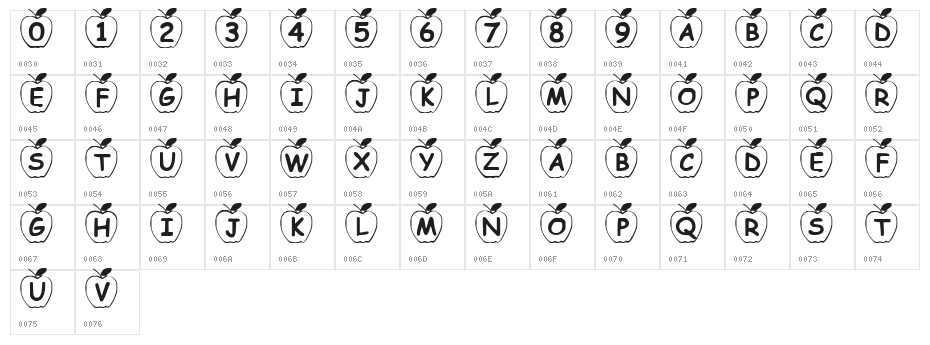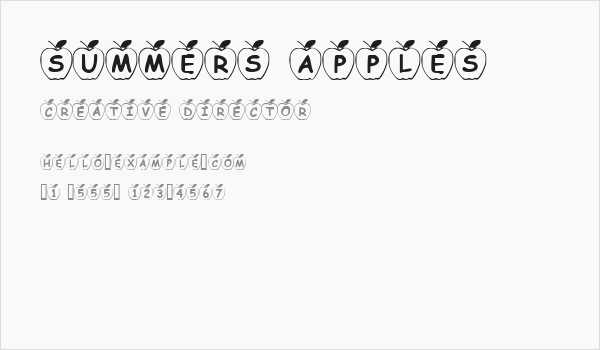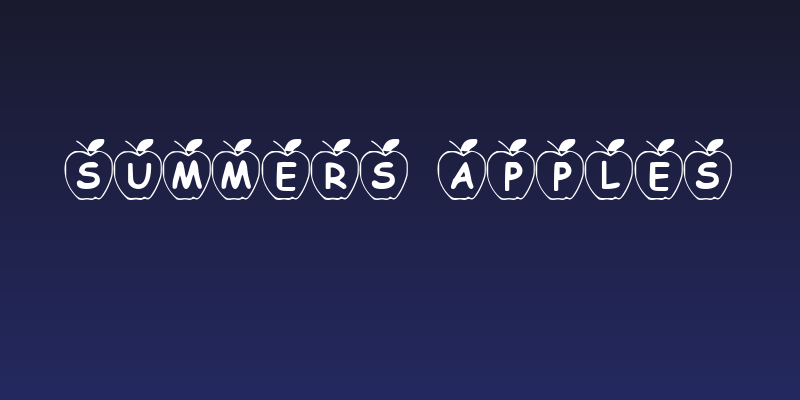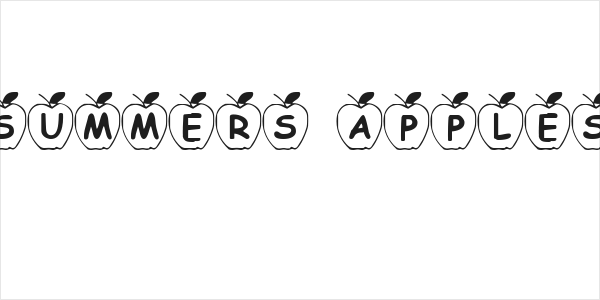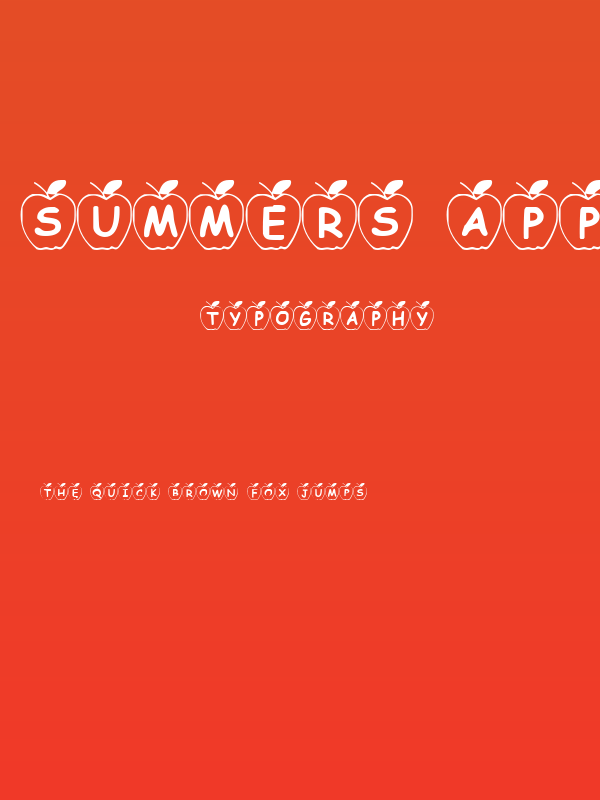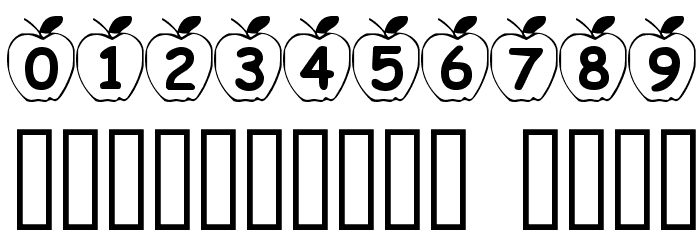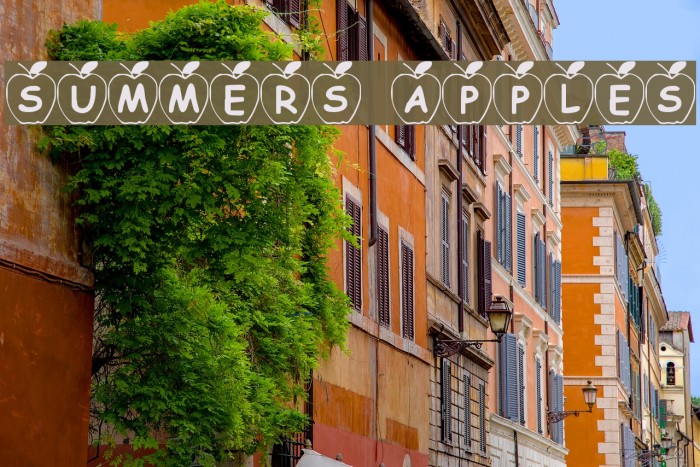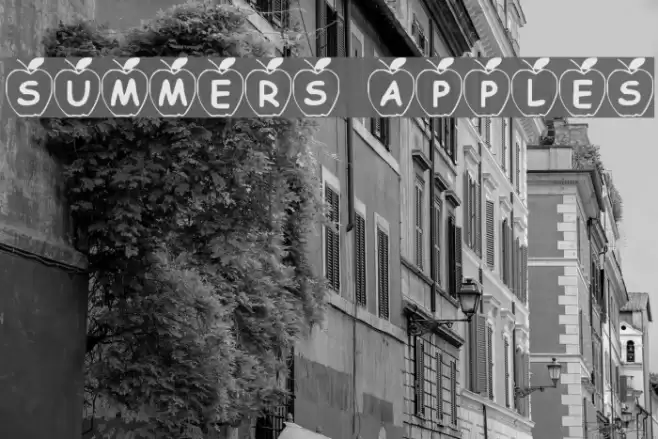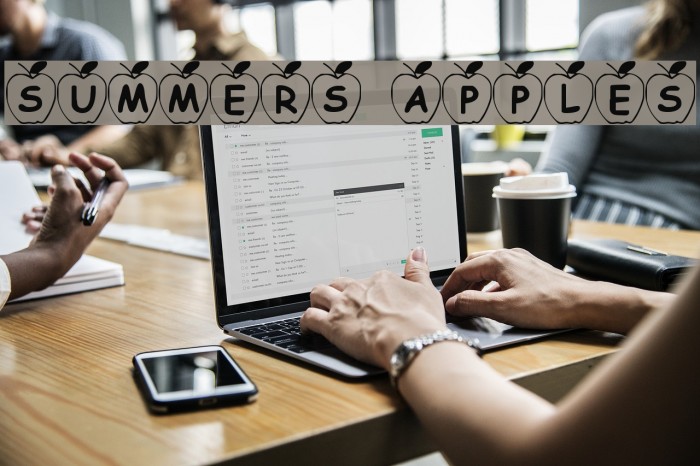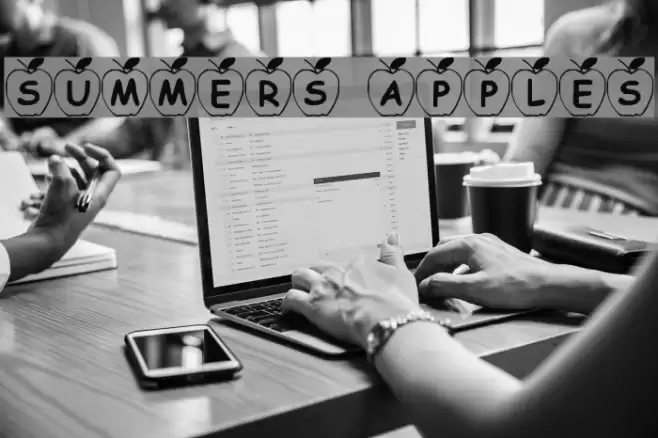
Summers Apples Font
| Gesamtstil | Playful, Whimsical |
| Anwendungsfall | Headlines, Logos, Themed Invitations |
| Vorgeschlagene Projekte | Ideal for children's books, educational materials, playful branding, and themed event invitations. |